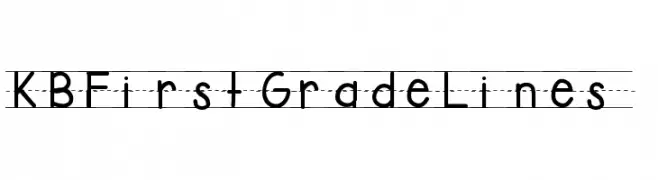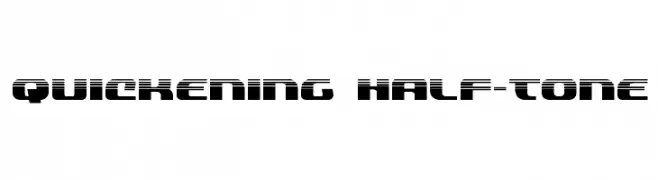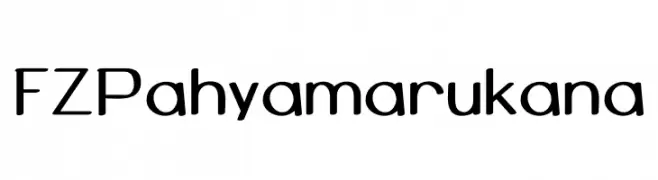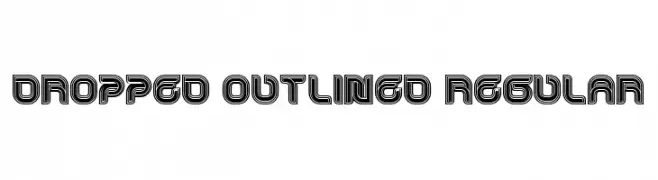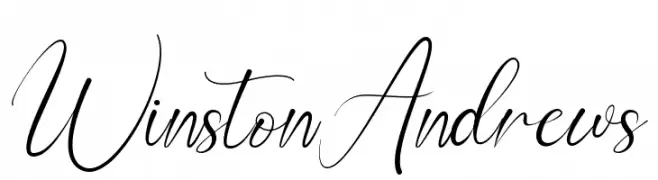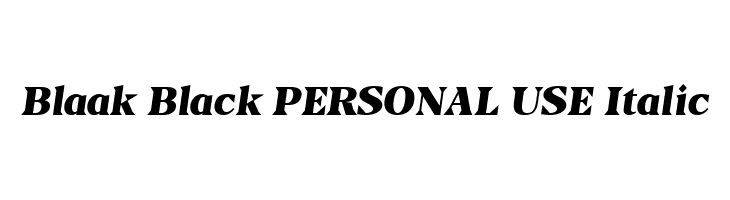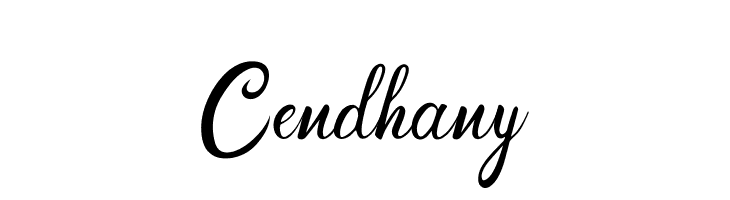
A lively, flowing script font with elegant, connected letterforms and bold strokes.
A geometric and modern font with clean lines and sharp angles.
A clear, educational handwriting font with uniform strokes and guiding lines.
A bold, high-contrast font with a modern and condensed style.
A modern, italic font with consistent stroke width and smooth, rounded characters.
A bold, dynamic font with a unique half-tone effect and strong visual impact.
A modern, playful font with rounded characters and unique design elements.
A bold, outlined font with a dropped shadow effect and geometric structure.
An elegant, flowing script font with high contrast and graceful curves.
An elegant, flowing script font with intricate loops and swashes.